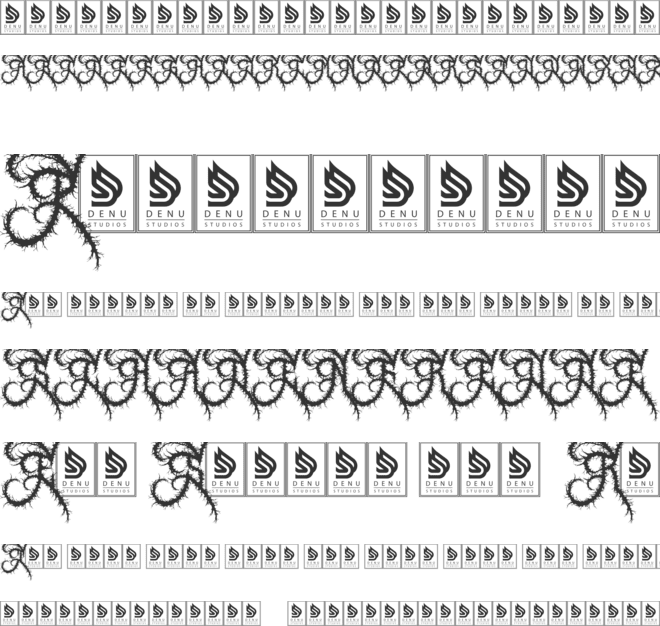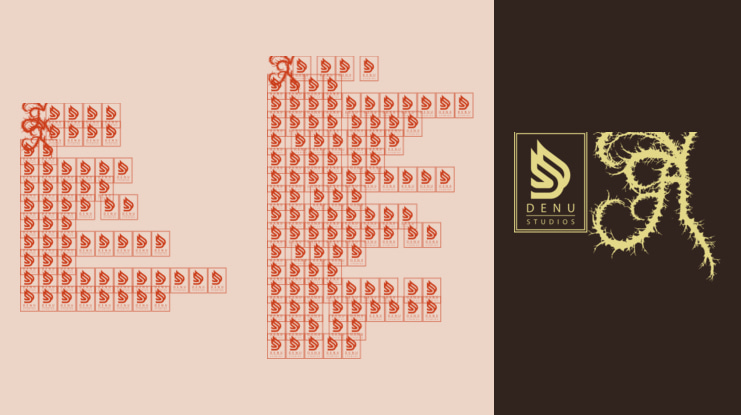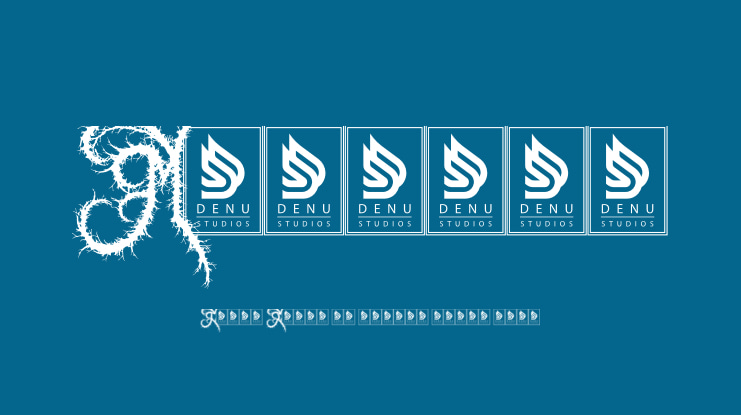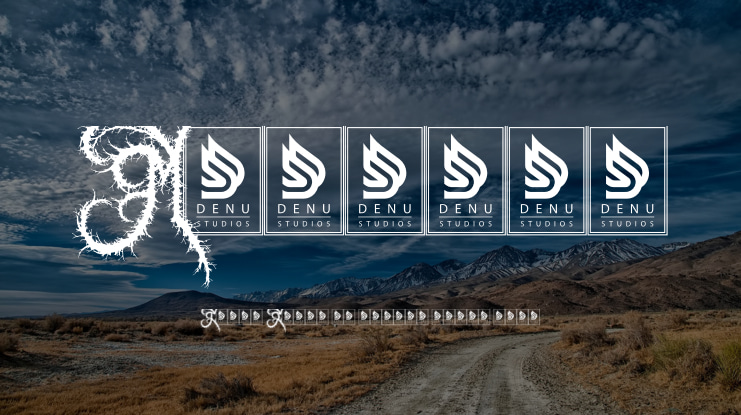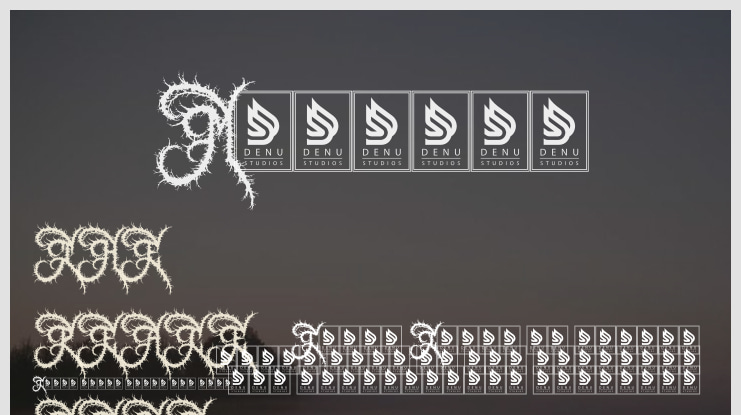
Miasmic | Death Metal Font is the perfect choice for various projects, including logos, branding, homeware designs, product packaging, mugs, quotes, posters, shopping bags, t-shirts, book covers, name cards, invitation cards, greeting cards, labels, photography, watermarks, special events, and any other project that demands a taste of Death Metal Font.